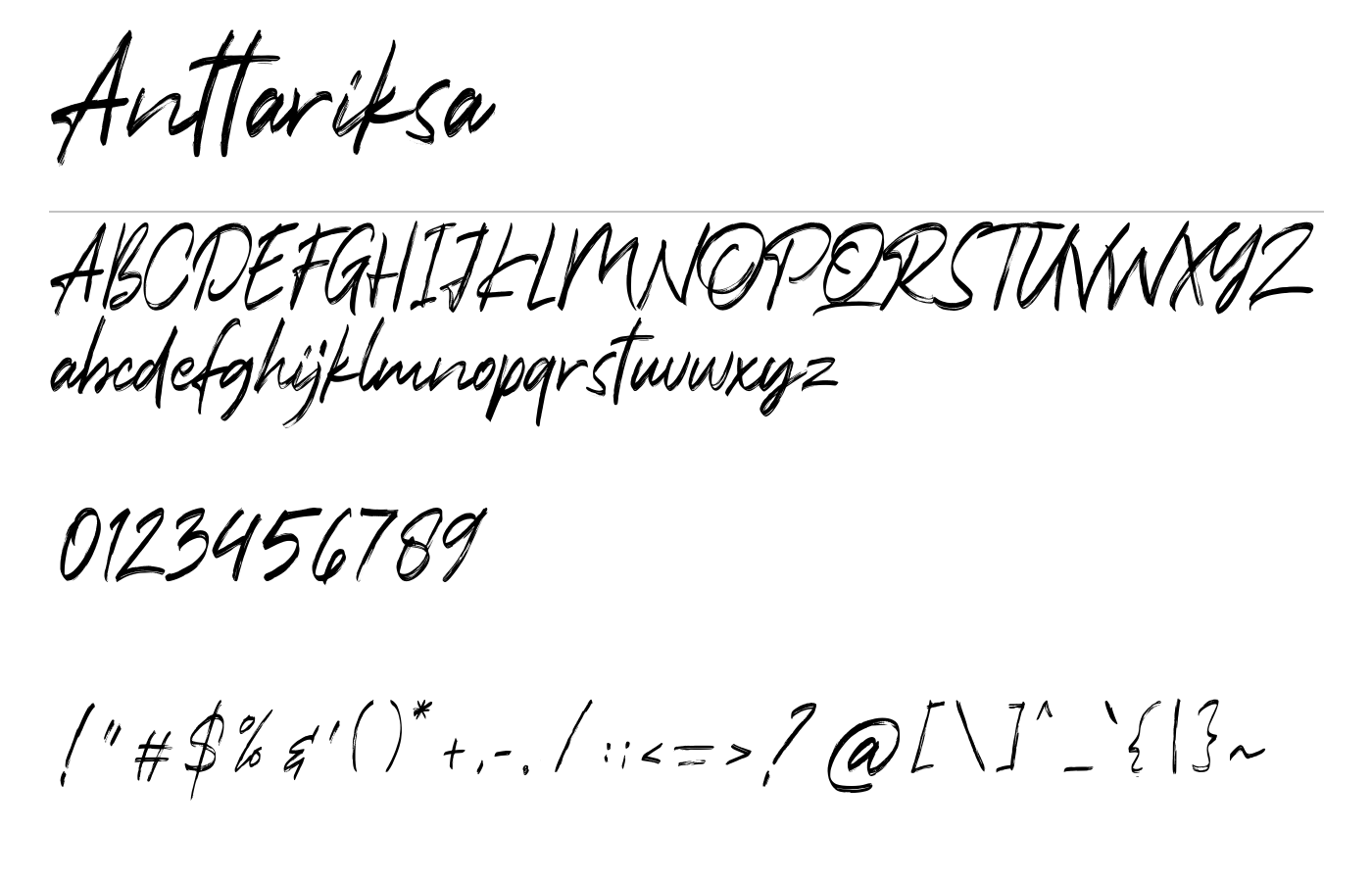
Anttariksa is a dynamic, handwritten script font characterized by its lively, brushstroke style that gives it an energetic and personal feel. With its irregular, textured strokes and casual yet stylish letterforms, it works wonderfully for creative branding, posters, and social media designs where a touch of artistic flair and individuality is desired. This font's expressive nature makes it perfect for projects aiming to convey creativity, spontaneity, and a handcrafted vibe.
Anttariksa Font
About Anttariksa Font